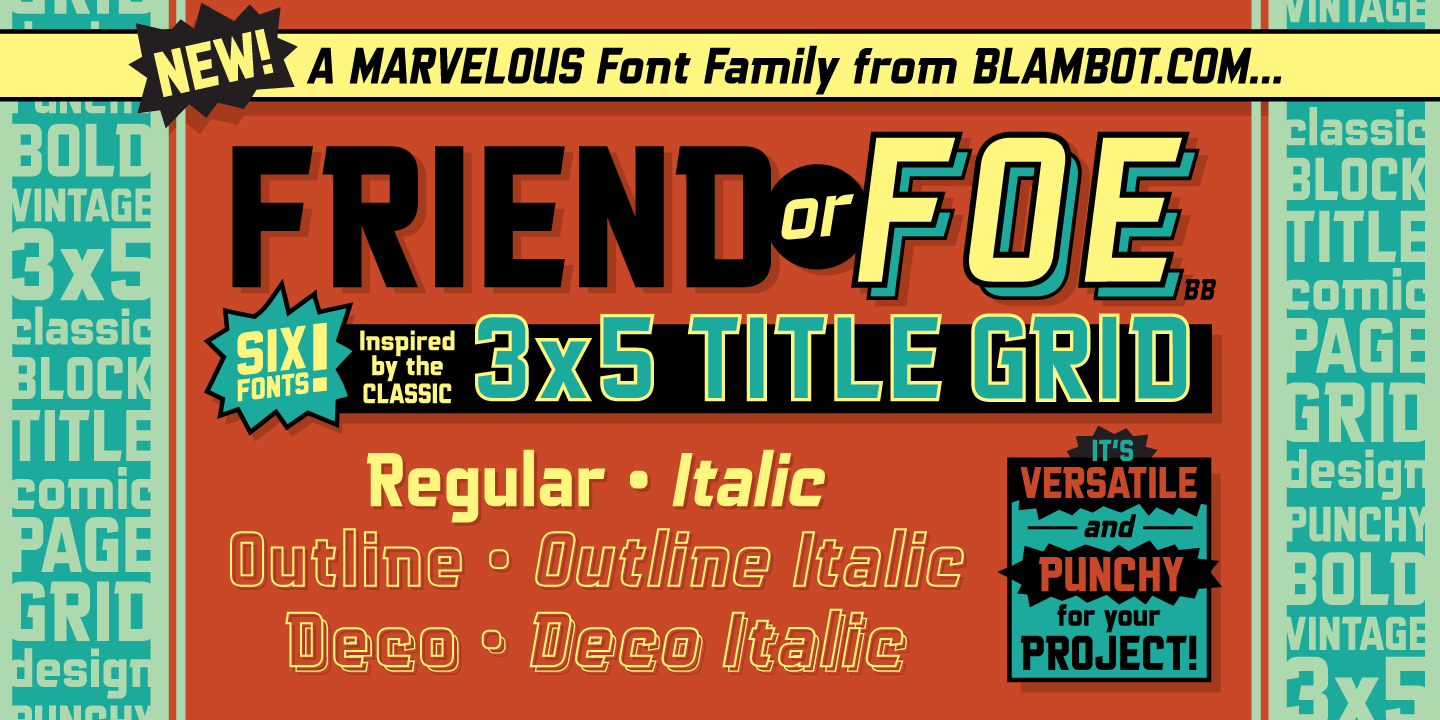
Looking for a font that brings bold attitude and edgy personality to your designs? Friend Or Foe BB Font Free Download is the perfect choice for projects that need a punch of drama and impact. This font’s strong, distinctive letterforms work great for posters, logos, and headlines that demand attention.
Whether you’re designing for entertainment, streetwear brands, or any project that needs a rebellious vibe, Friend Or Foe BB Font Free Download delivers confidence and flair. The font’s dynamic presence ensures your message stands out in any crowded space.